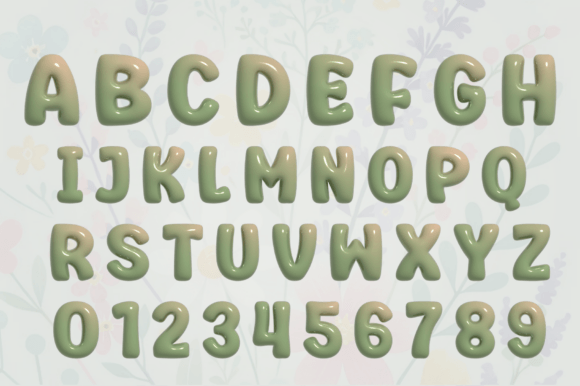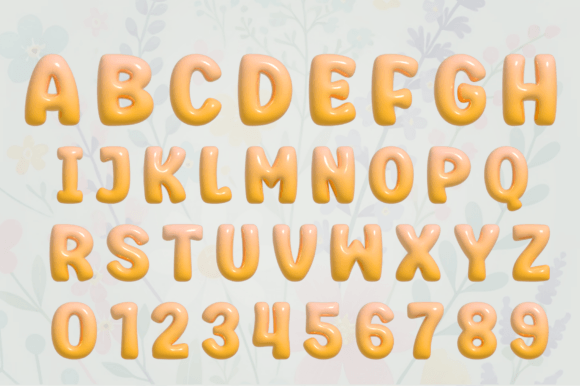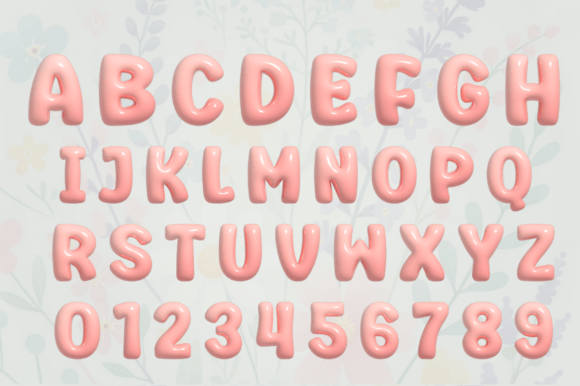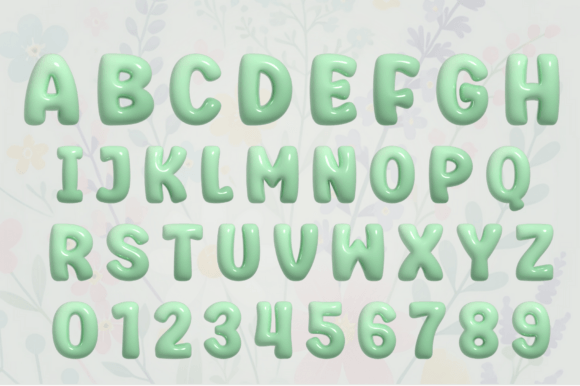
Introducing the 3D Spring Font: A Vibrant and Playful Typeface for Your Seasonal Projects
Are you looking for a font that captures the essence of springtime? Look no further than the 3D Spring Font, a delightful and colorful typeface that’s perfect for a variety of creative projects. In this article, we’ll take a closer look at the features of this font, its compatibility with different design programs and cutting machines, and provide tips on how to make the most of it.
A Font that Embodies the Beauty of Spring
The 3D Spring Font is a vibrant and playful font that’s inspired by the beauty of springtime. Each letter is crafted in 3D style with soft pastel hues, giving it a fresh and lively feel. The font is adorned with delicate floral decorations, adding an extra touch of elegance and sophistication. Whether you’re working on a seasonal project, designing a greeting card, or creating a poster, this font is sure to add a pop of color and whimsy to your design.
Key Features of the 3D Spring Font
- 3D Style Letters: Each letter is crafted in 3D style, giving it a unique and eye-catching appearance.
- Soft Pastel Hues: The font features soft pastel hues that evoke the feeling of springtime.
- Delicate Floral Decorations: The font is adorned with delicate floral decorations, adding an extra touch of elegance and sophistication.
Tips for Using the 3D Spring Font
Here are a few tips for using the 3D Spring Font in your designs:
- Use it for Seasonal Projects: This font is perfect for seasonal projects, such as Easter or Mother’s Day cards, spring-themed posters, and more.
- Experiment with Different Colors: While the font comes in a range of soft pastel hues, feel free to experiment with different colors to match your brand or design style.
- Pair it with Other Fonts: The 3D Spring Font works well with other fonts, so don’t be afraid to pair it with a complementary font to add some contrast and visual interest.
- Use it for Greeting Cards and Invitations: This font is perfect for creating greeting cards, invitations, and other paper crafts.
The 3D Spring Font is a vibrant and playful typeface that’s perfect for designers and crafters looking to add a touch of springtime whimsy to their projects. With its 3D style letters, soft pastel hues, and delicate floral decorations, this font is sure to make your designs stand out. Whether you’re working on a seasonal project, designing a greeting card, or creating a poster, this font is a great choice. So why not give it a try and see what amazing designs you can create?